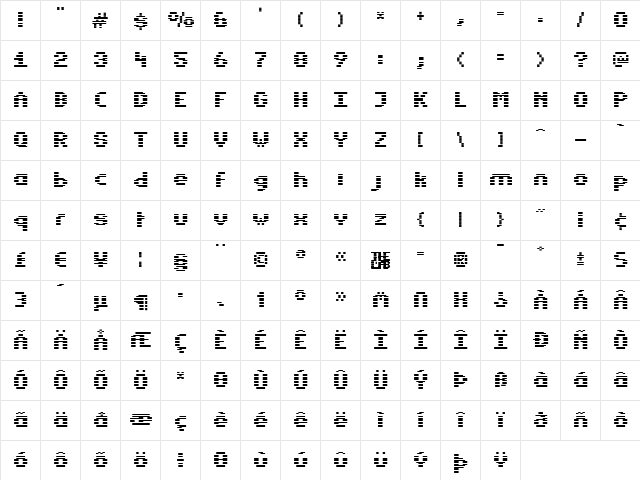
Estrogen Roman
Design Context for Estrogen Typeface
Estrogen is a composed and adaptable typeface that performs quietly and consistently across a wide range of design contexts.